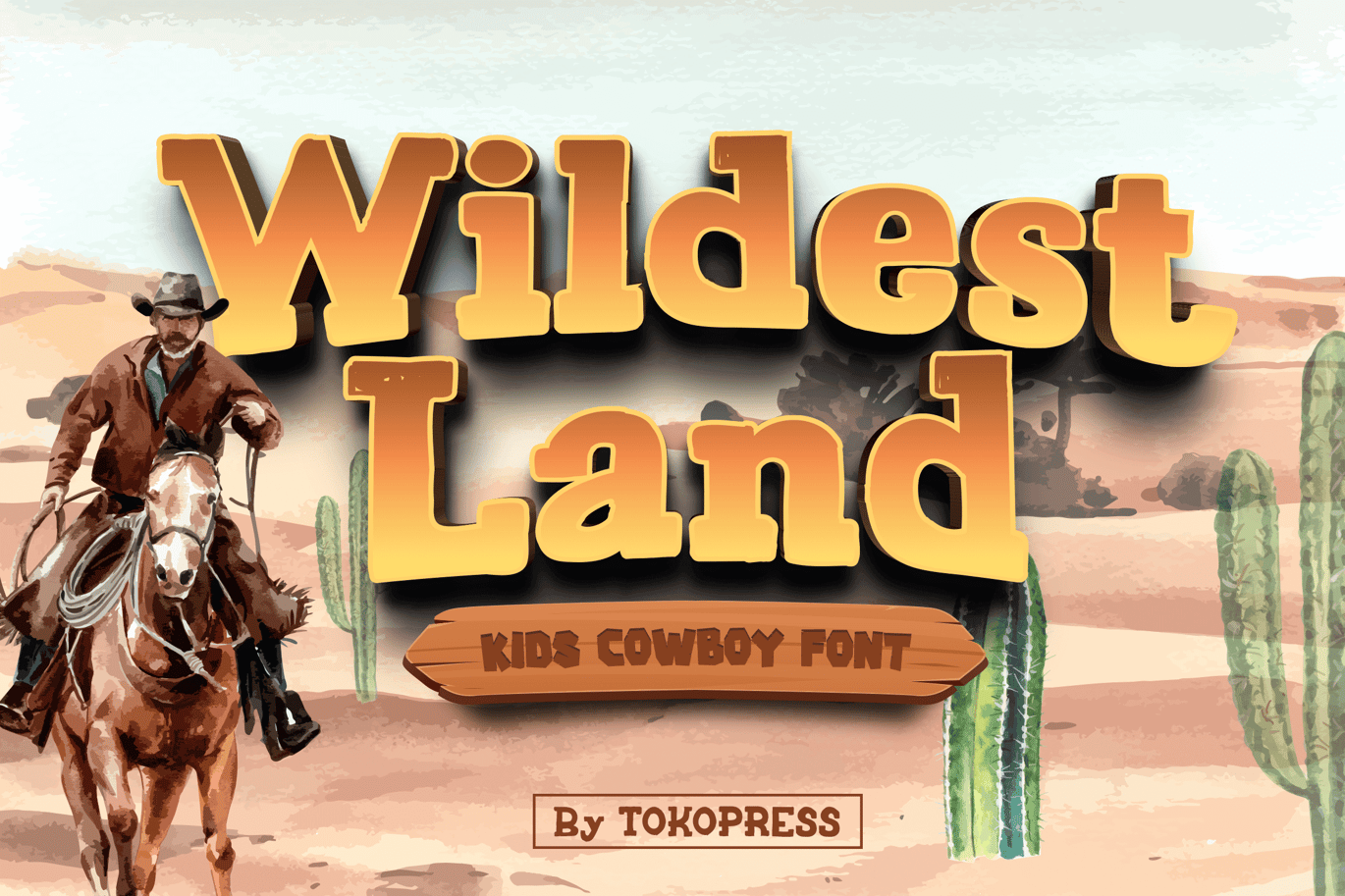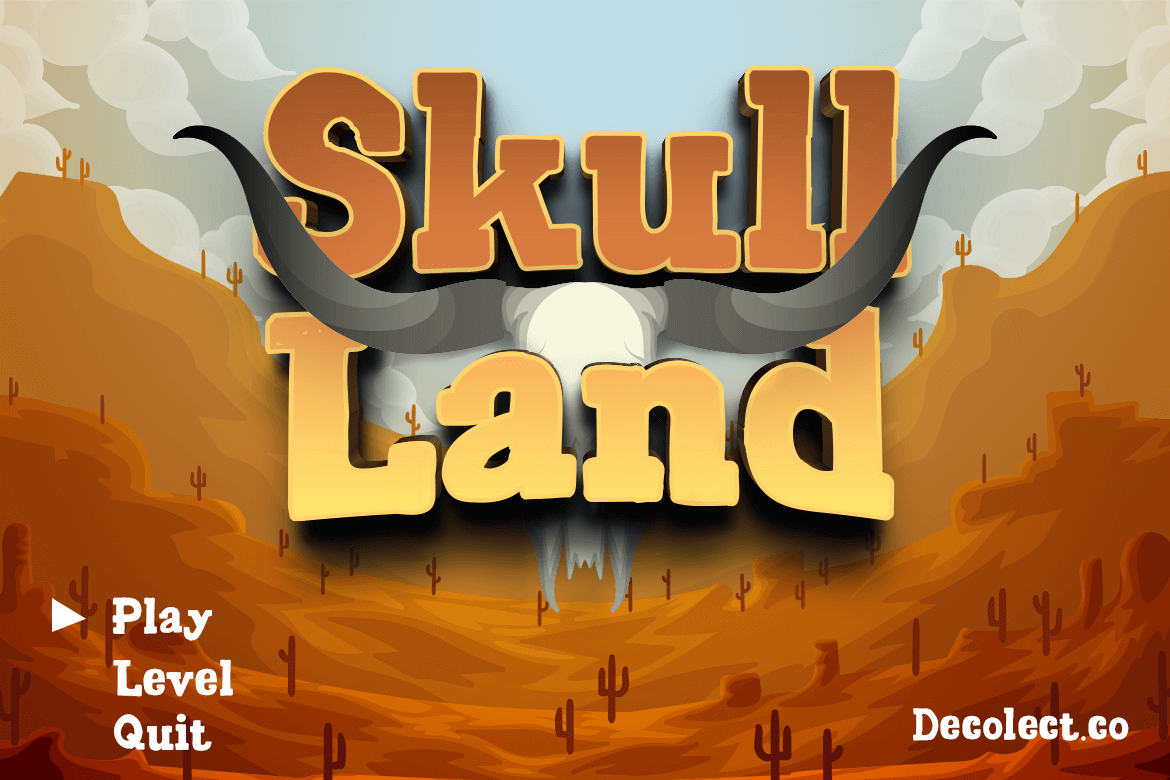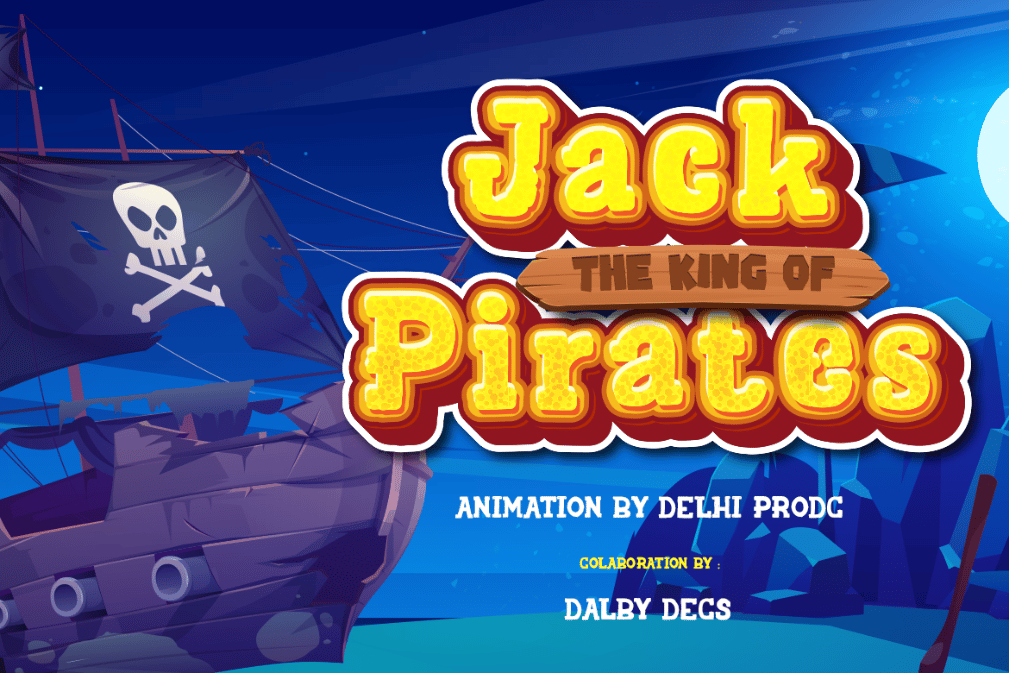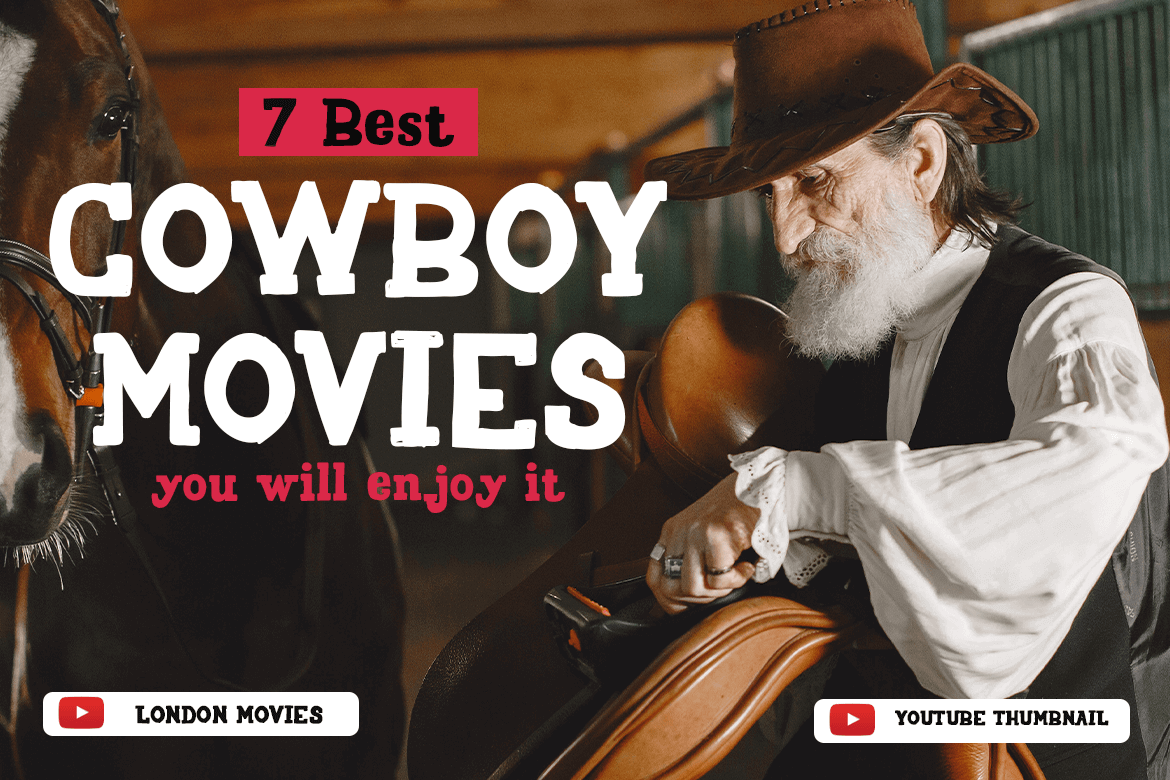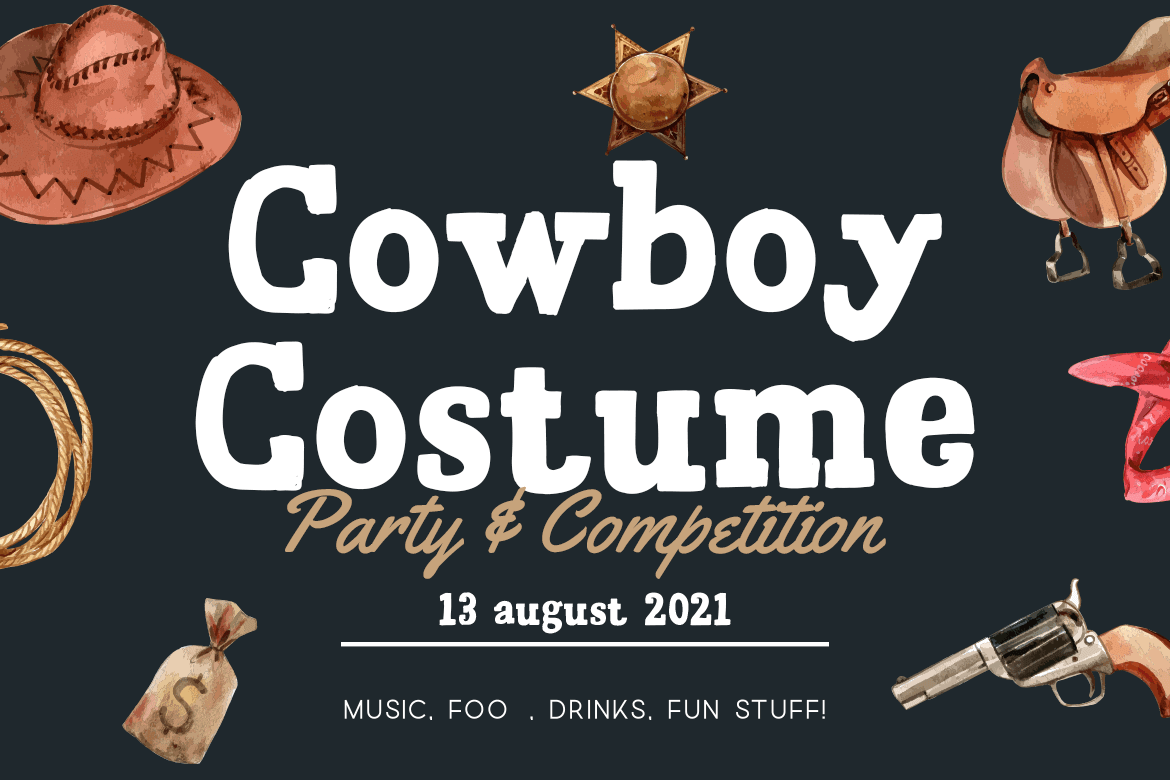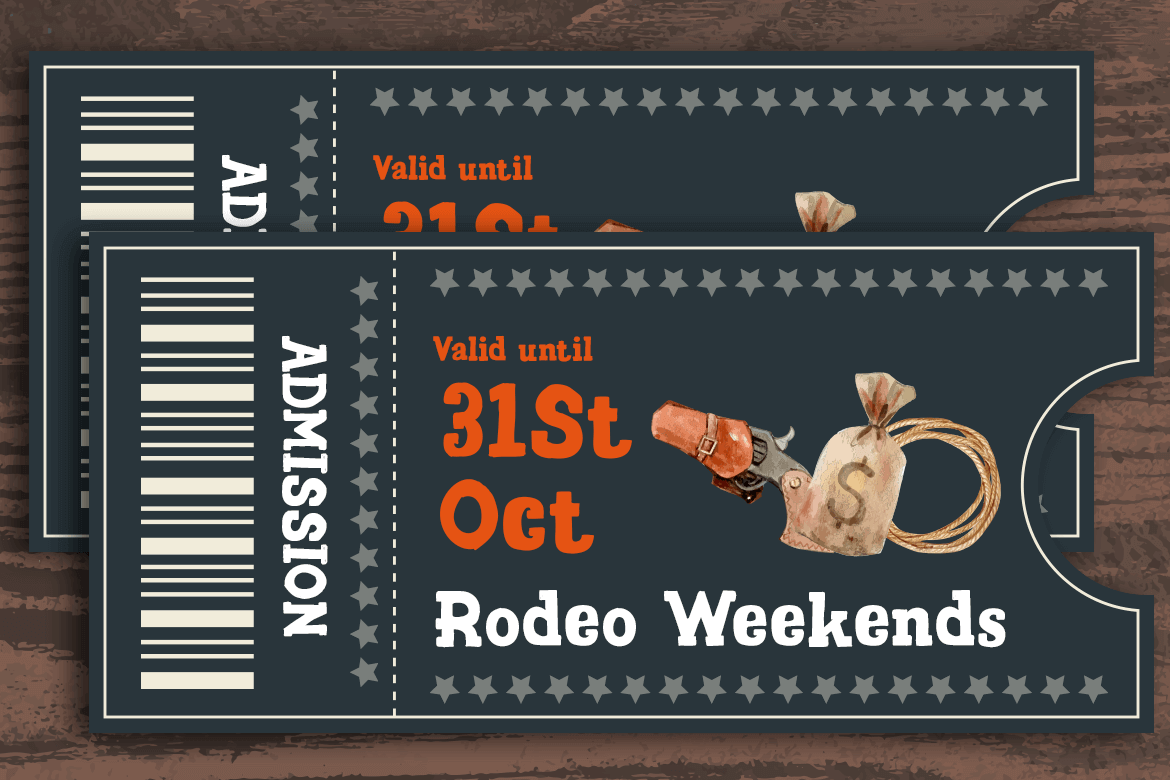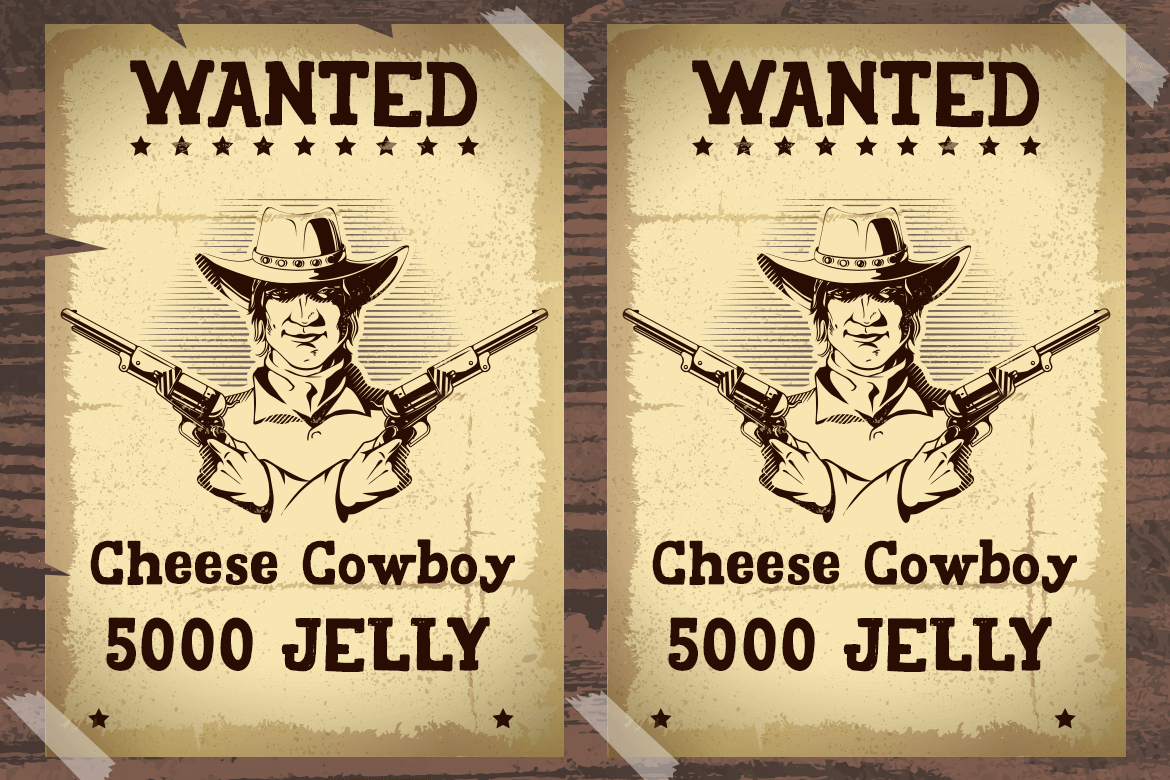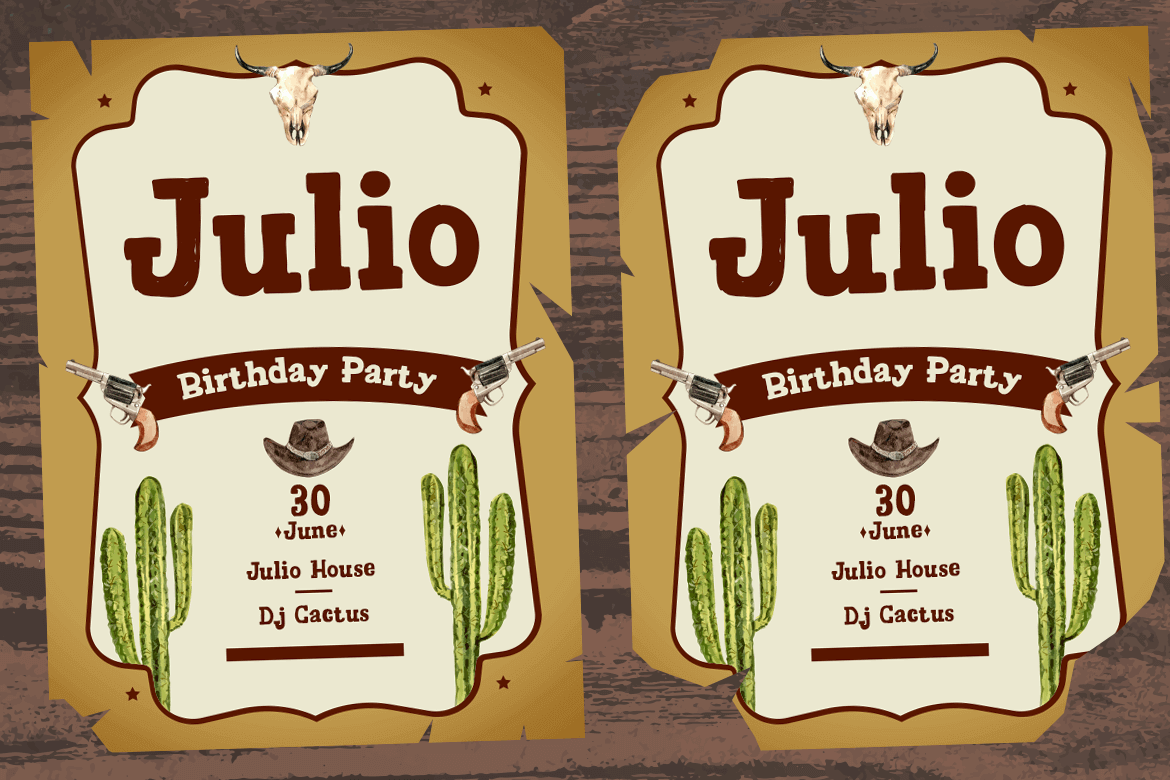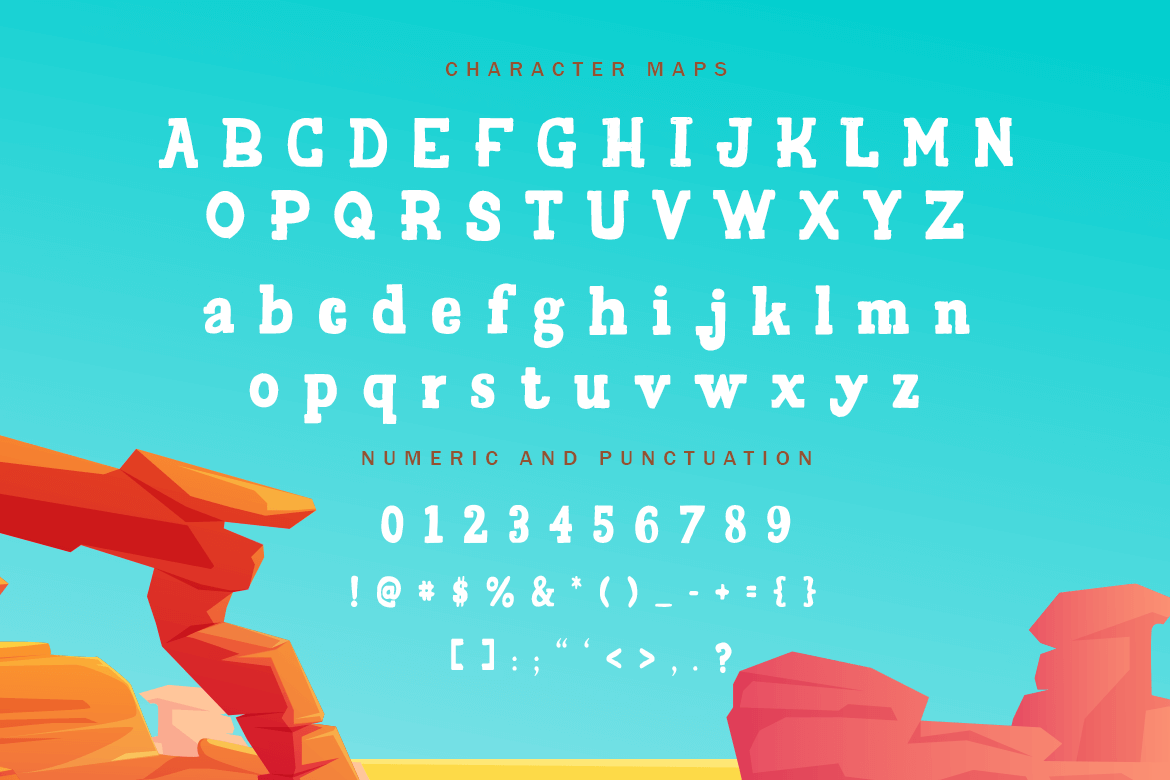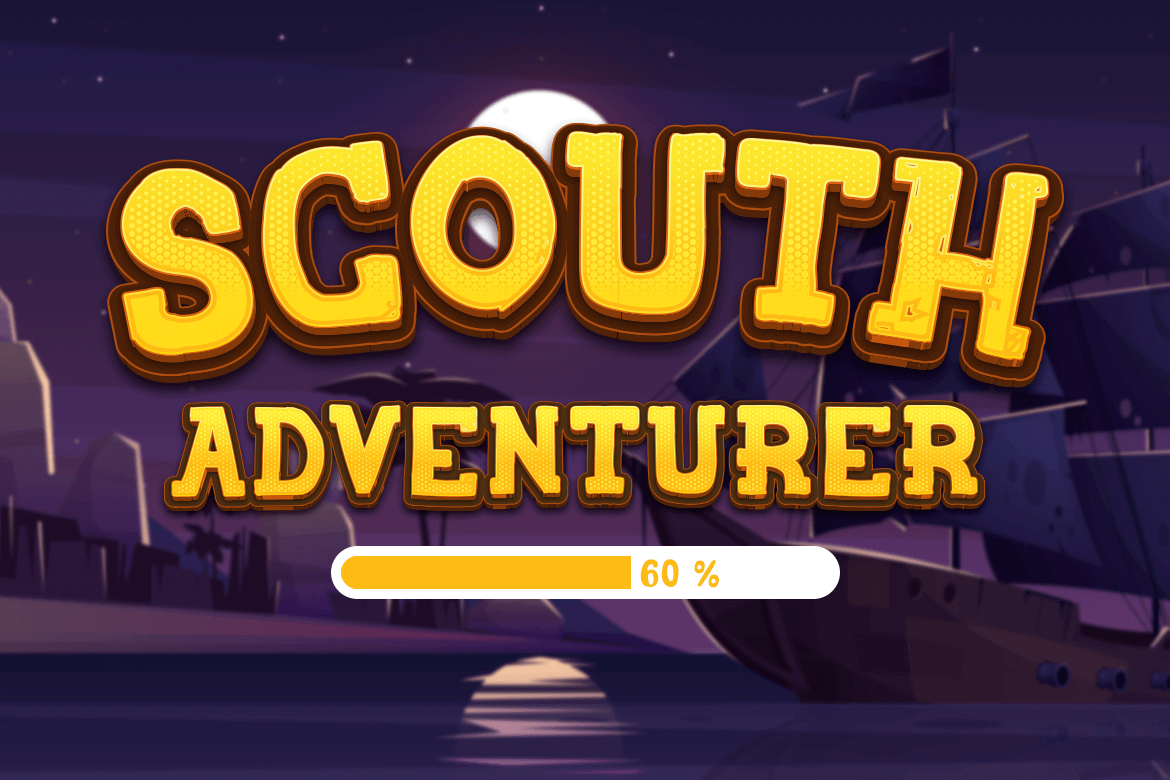
Wildest Land – Cowboy Kids Font
Wildest Land – Gaming font
It is western, it is bouncy baseline, it is Wildest Land, your new favorite western kids font in town.
Suit perfectly for kids market, online games, stationary, school supplies font, poster, movie title, youtube covers, youtube thumbnails, social media page covers and so on…